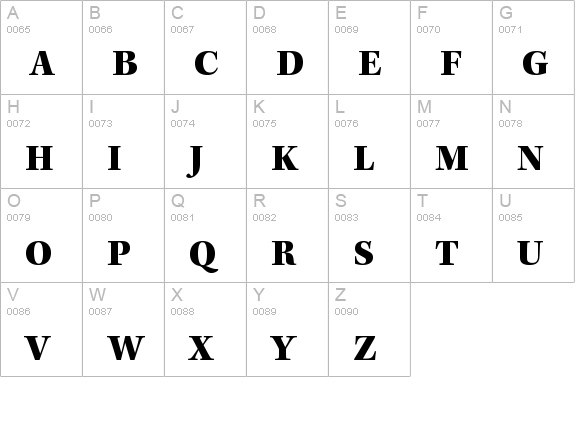
Kepler Std Black is a maximum-weight, dramatic variant in the Kepler typeface family \xE2\x80\x94 well suited to maximum-impact headlines, posters, and packaging.
Kepler Std Black font is a bold and commanding typeface that exudes elegance and sophistication. Its strong and confident letterforms make it an ideal choice for headlines, posters, and branding projects that require a touch of authority. With its wide range of weights and styles, Kepler Std Black font offers versatility and flexibility to designers looking to add a touch of drama and impact to their designs. The thick and well-defined strokes give this font a distinct presence, grabbing attention and leaving a lasting impression. What makes Kepler Std Black font even more appealing is that it is freely available to download at FontsMarket.com. This means that designers, creatives, and typography enthusiasts can access this powerful and impactful font without any cost. Whether you are working on personal or commercial projects, this font offers a high-quality and professional option that won't break the bank. So, if you are looking to add a bold and striking element to your designs, look no further than Kepler Std Black font. Download it for free at FontsMarket.com and unleash the power of this captivating typeface in your next project.